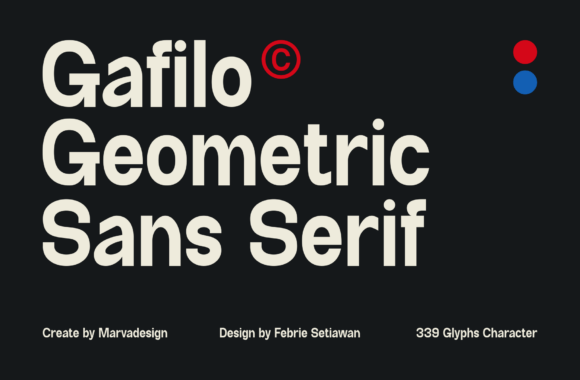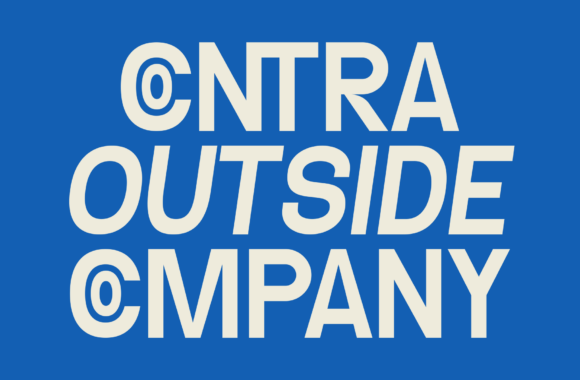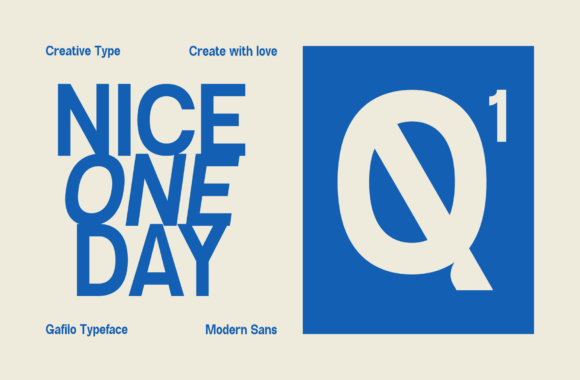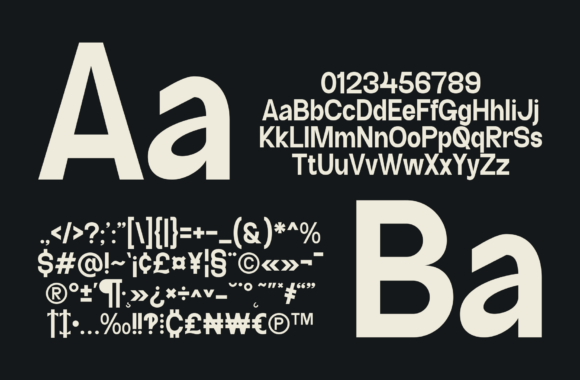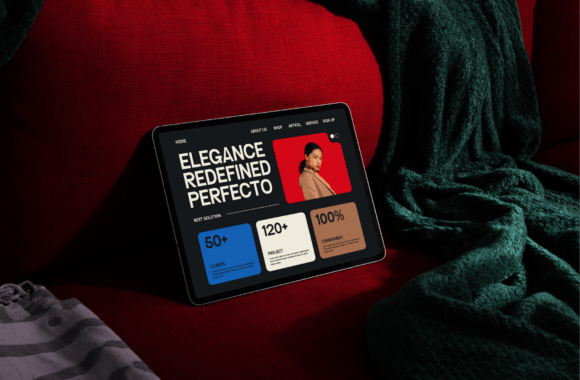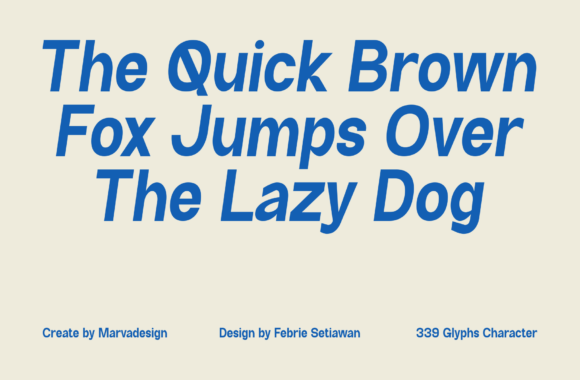
Introducing Gafilo Font: A Modern Sans Serif Typeface for Sophisticated Designs
In the world of typography, a font can make or break a design. For designers and crafters looking for a modern, sleek aesthetic that doesn’t compromise on readability or sophistication, look no further than the Gafilo Font. This contemporary sans serif typeface is engineered to elevate your projects with its clean lines, versatile styles, and unique character variations.
Clean and Contemporary Design
Gafilo is characterized by its minimalist yet distinctive approach to sans serif typography. Its clean and contemporary design ensures that it fits seamlessly into a wide range of design applications, from digital interfaces to print materials. The font’s sleek appearance is not just visually appealing but also highly legible, making it perfect for both body text and headings.
Versatility with Two Styles
One of the standout features of Gafilo is its versatility, offered through two distinct styles: regular and italic. This range allows designers to add depth and dynamism to their work. Whether you’re looking to create a sense of movement or simply need an alternative to add visual interest, the italic version of Gafilo provides the perfect solution without ever compromising on the font’s cohesive look and feel.
Distinctive Lowercase Letters
The true uniqueness of Gafilo lies in its distinctive lowercase letters. Certain characters exhibit subtle yet noticeable variations, setting Gafilo apart from more generic sans serif fonts. These variations add a layer of sophistication and personality to your text, making it more engaging and memorable for readers. This attention to detail underscores the font’s suitability for projects where standing out is crucial.
Ideal for Modern Projects
Gafilo is particularly well-suited for projects that demand a modern, sleek aesthetic. Its design ensures that it can be used across various platforms and mediums, from web design and mobile apps to branding, advertising, and print. The font’s balance of modernity and readability makes it an excellent choice for designers aiming to create a lasting impression.
Enhancing Readability and Sophistication
While Gafilo boasts a contemporary look, it doesn’t sacrifice readability or sophistication. The font’s design carefully balances stylistic flair with legibility, ensuring that your text is easy to read and understand, without ever appearing dull or generic. This balance is crucial for designers who need to communicate their message effectively while also making a visual impact.
Applications of Gafilo Font
The applications of Gafilo are vast and varied. Here are a few examples of where this versatile font can make a significant impact:
- Digital Interfaces: Use Gafilo for UI/UX design to create clean, intuitive interfaces that are both modern and user-friendly.
- Branding and Logo Design: The unique character variations in Gafilo make it an excellent choice for logos and brand identities looking for a distinctive touch.
- Print Materials: From brochures and magazines to business cards and posters, Gafilo brings a touch of sophistication to any print project.
- Web Design: Enhance your website’s typography with Gafilo, making your content more engaging and accessible to your audience.
Gafilo Font represents a significant addition to the world of sans serif typography. Its modern, clean design, combined with its versatility and distinctive character variations, make it an invaluable tool for designers and crafters. Whether you’re working on a digital project, a print material, or a brand identity, Gafilo offers the perfect blend of style, readability, and sophistication. Discover the potential of Gafilo and take your designs to the next level.